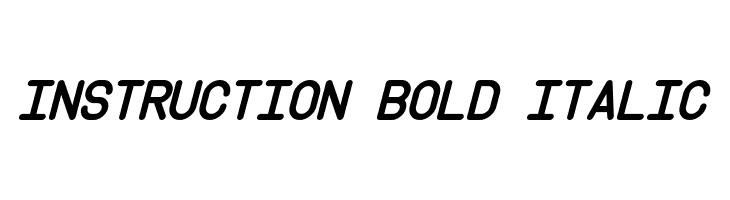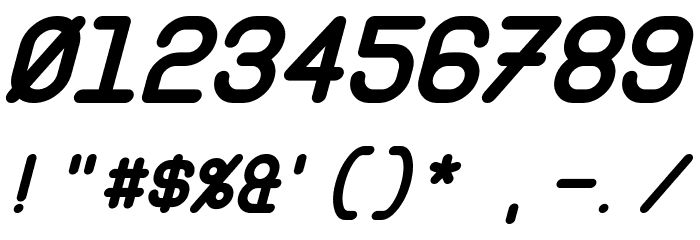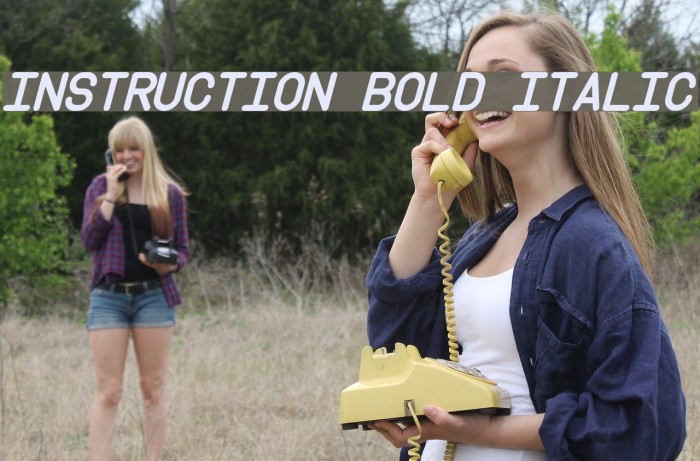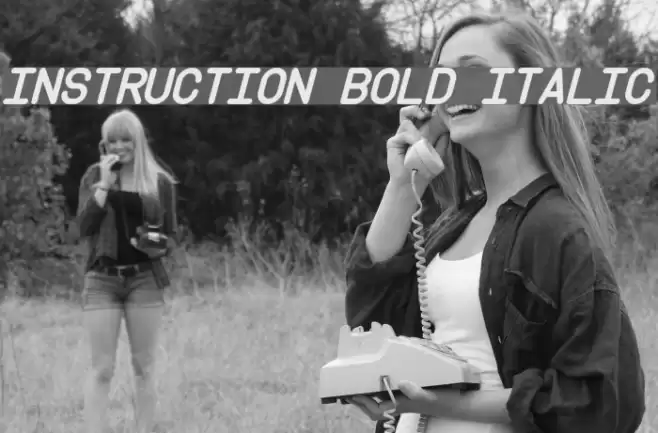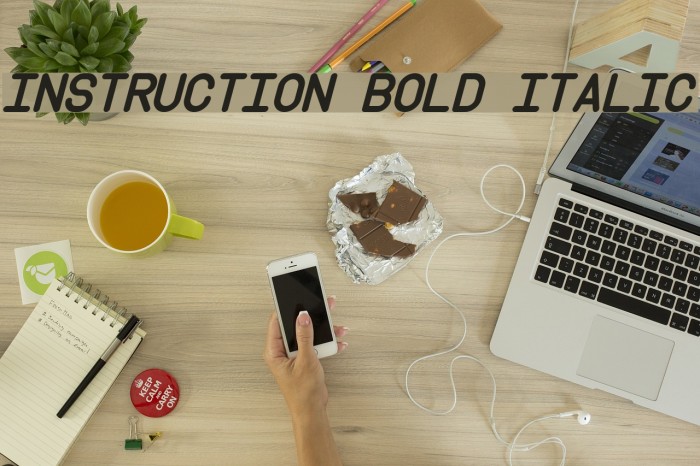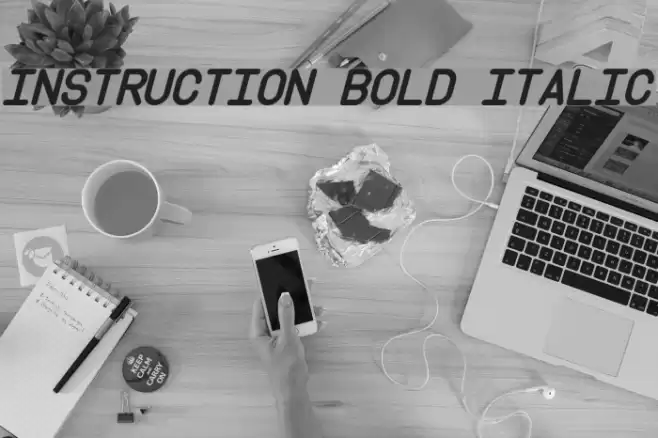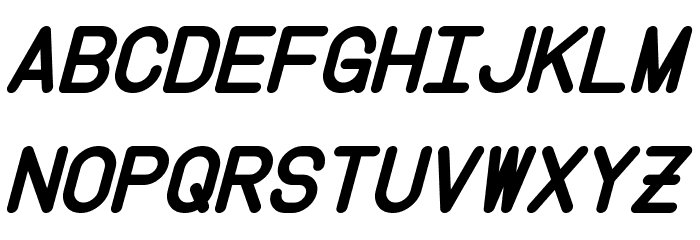
Instruction Bold Italic Font
| Cas d'utilisation | Headlines, Logos, Signage |
| Projets proposés | Ideal for branding, advertising, headlines, and signage where a strong, modern impression is needed. |